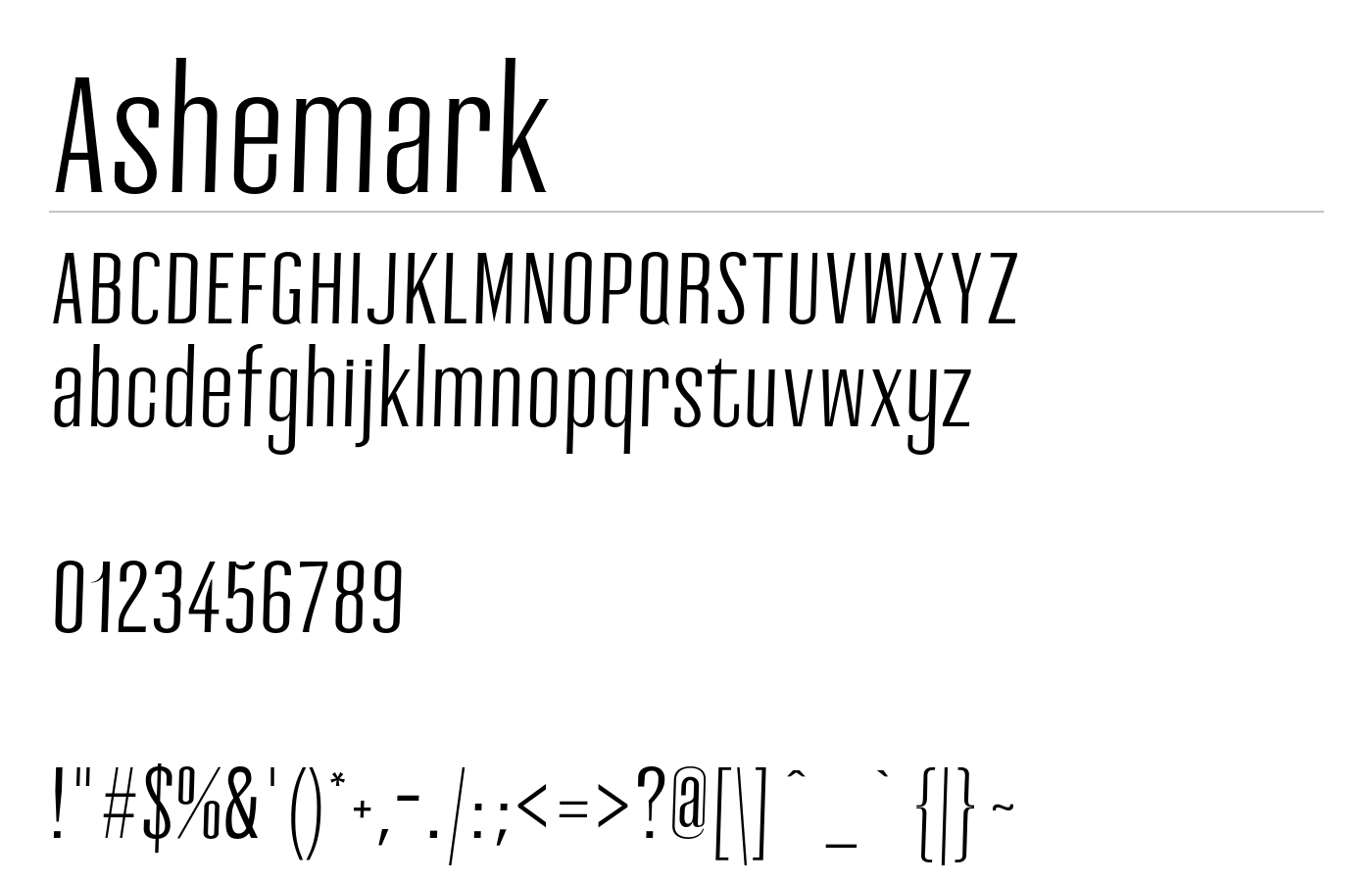
Ashemark is a tall, narrow sans serif font that combines a modern and minimalist feel with strong vertical emphasis. Its clean lines and consistent stroke widths create an elegant and contemporary look, making it ideal for stylish headlines, branding, and editorial designs where a sleek and distinctive presence is needed. With its easy-to-read letterforms and refined character, Ashemark works well in fashion, tech, and luxury contexts, lending a sense of sophistication without losing clarity.
Ashemark Font
About Ashemark Font